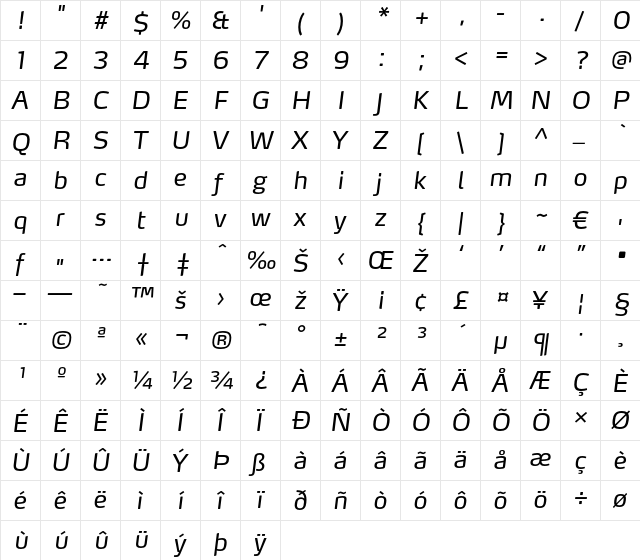
MaxLF-RegularItalic Regular
Design Context for MaxLF-RegularItalic Typeface
MaxLF-RegularItalic takes a measured approach to typography — its balanced proportions and neutral character make it a reliable workhorse for both digital and print work. Its italic angle brings a sense of urgency and motion to the letterforms.
Pro Tip: Use MaxLF-RegularItalic for emphasis, pull quotes, and subheadings where its slanted energy can add rhythm to the layout.